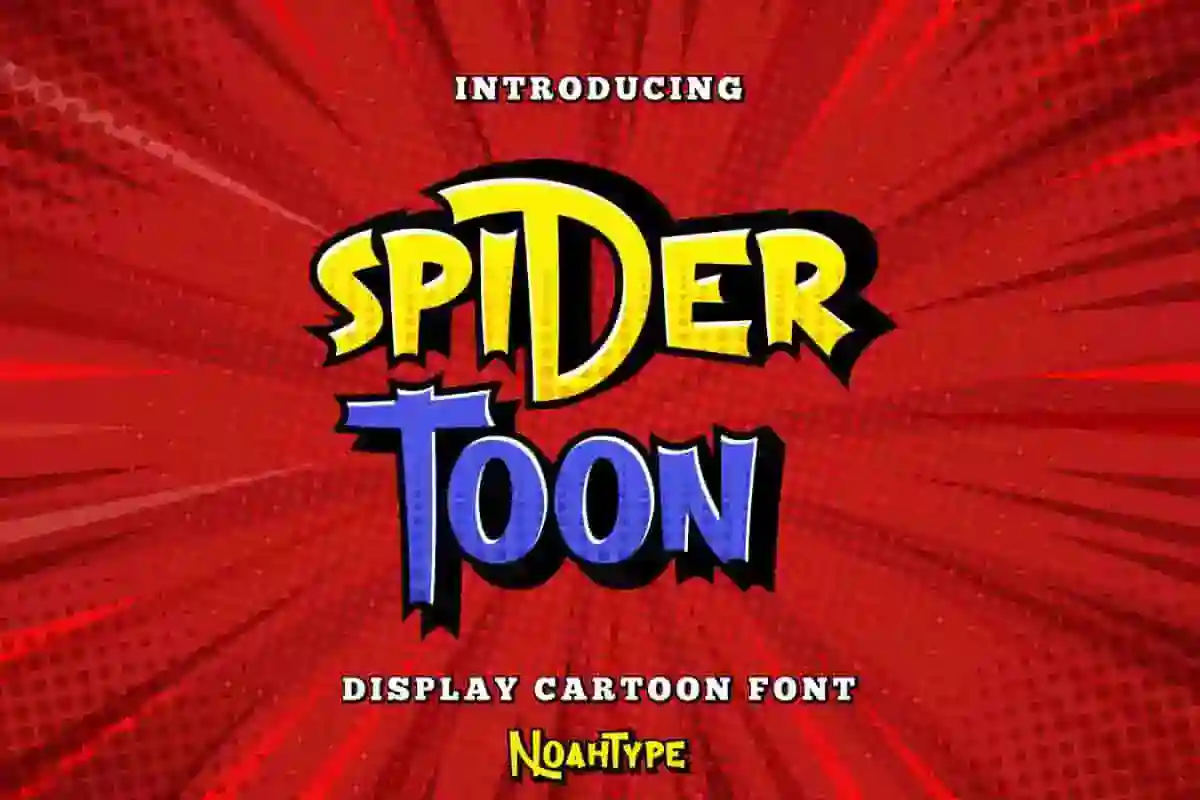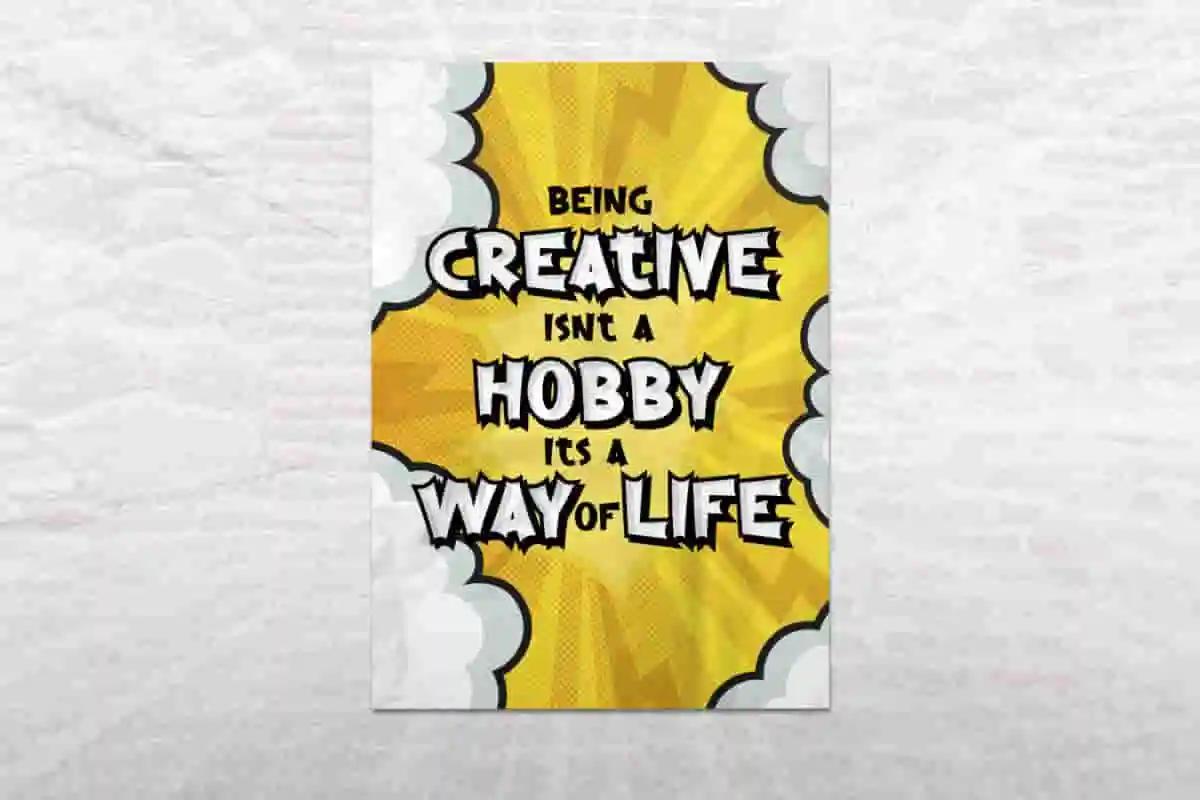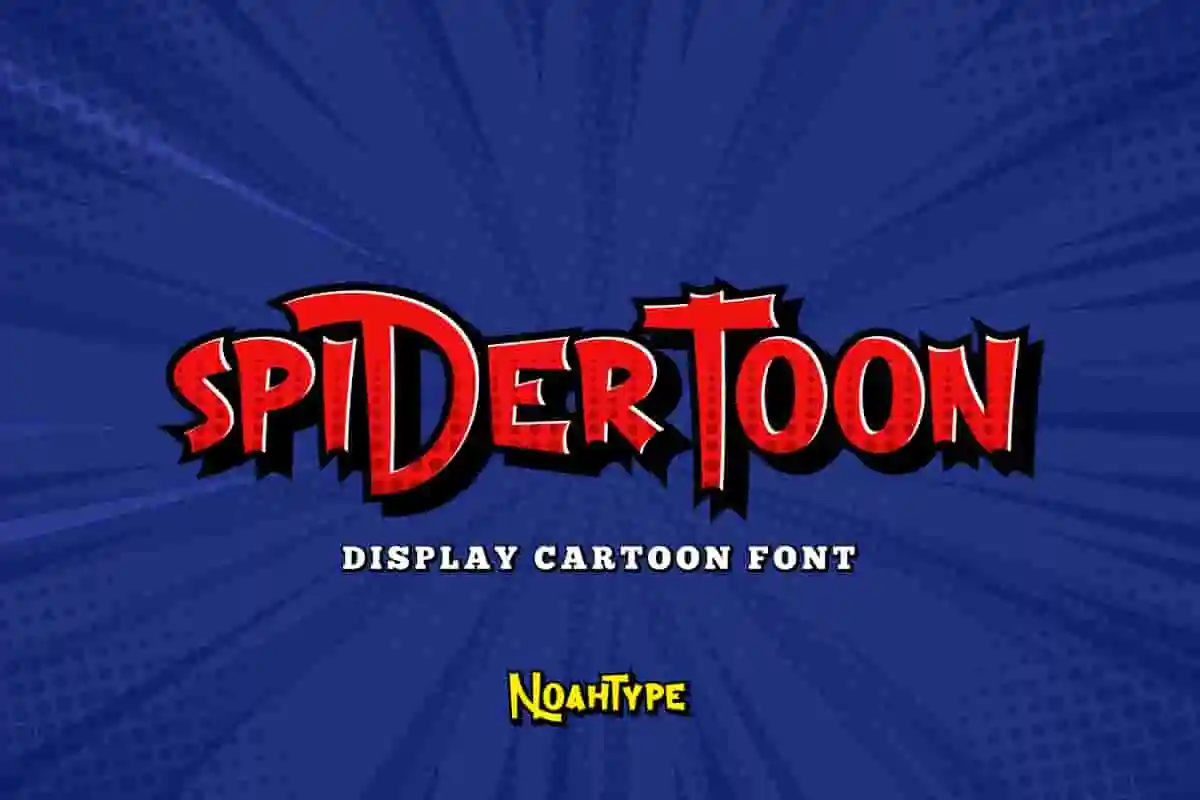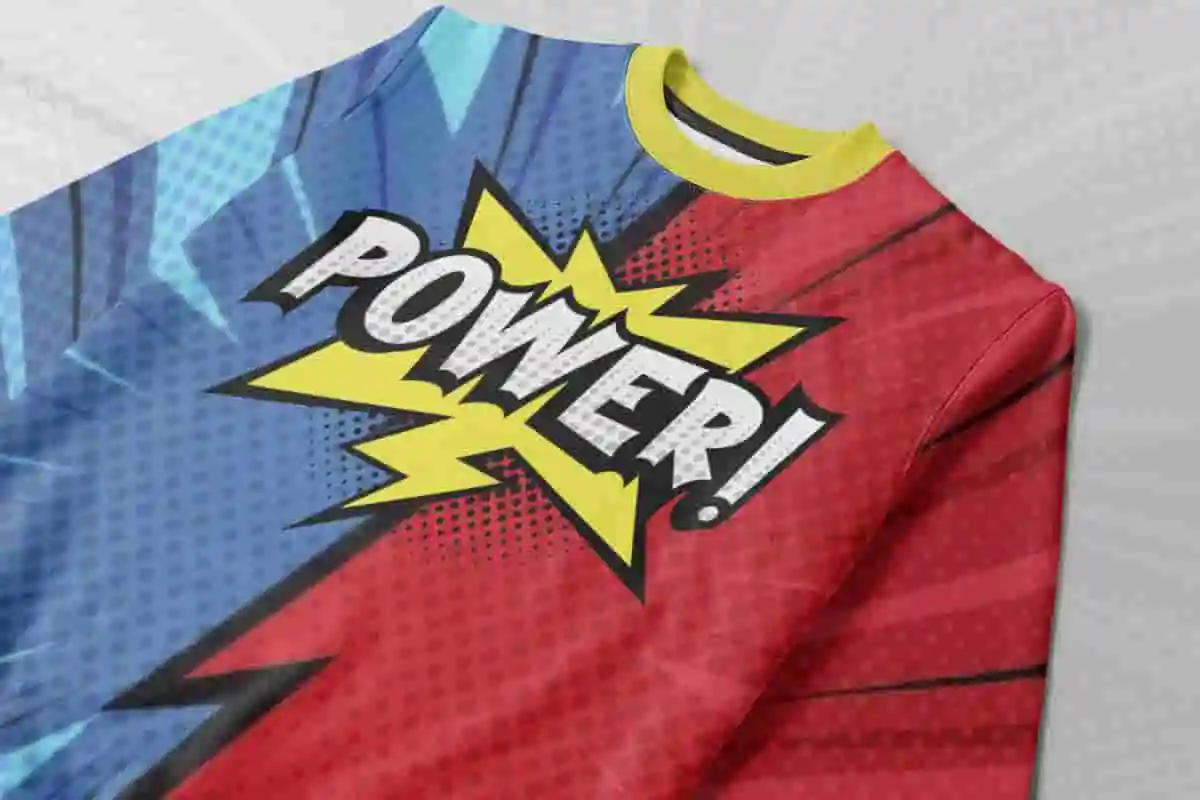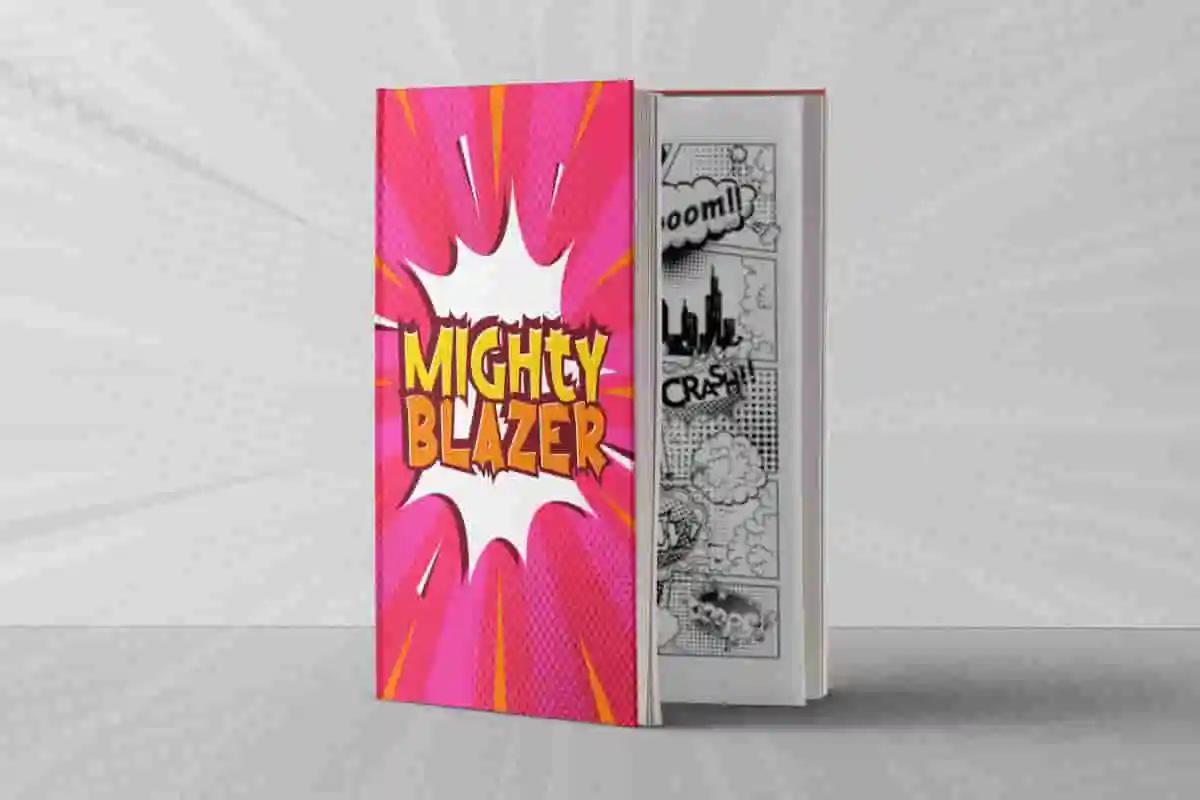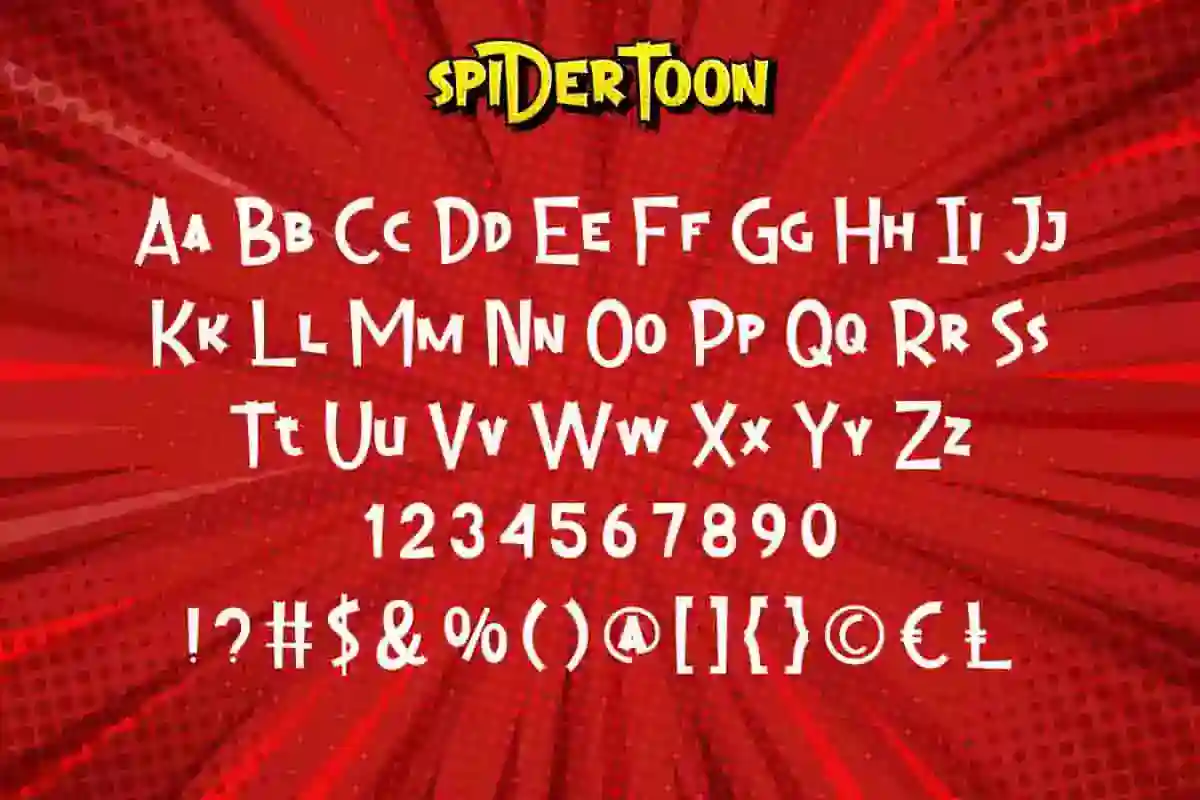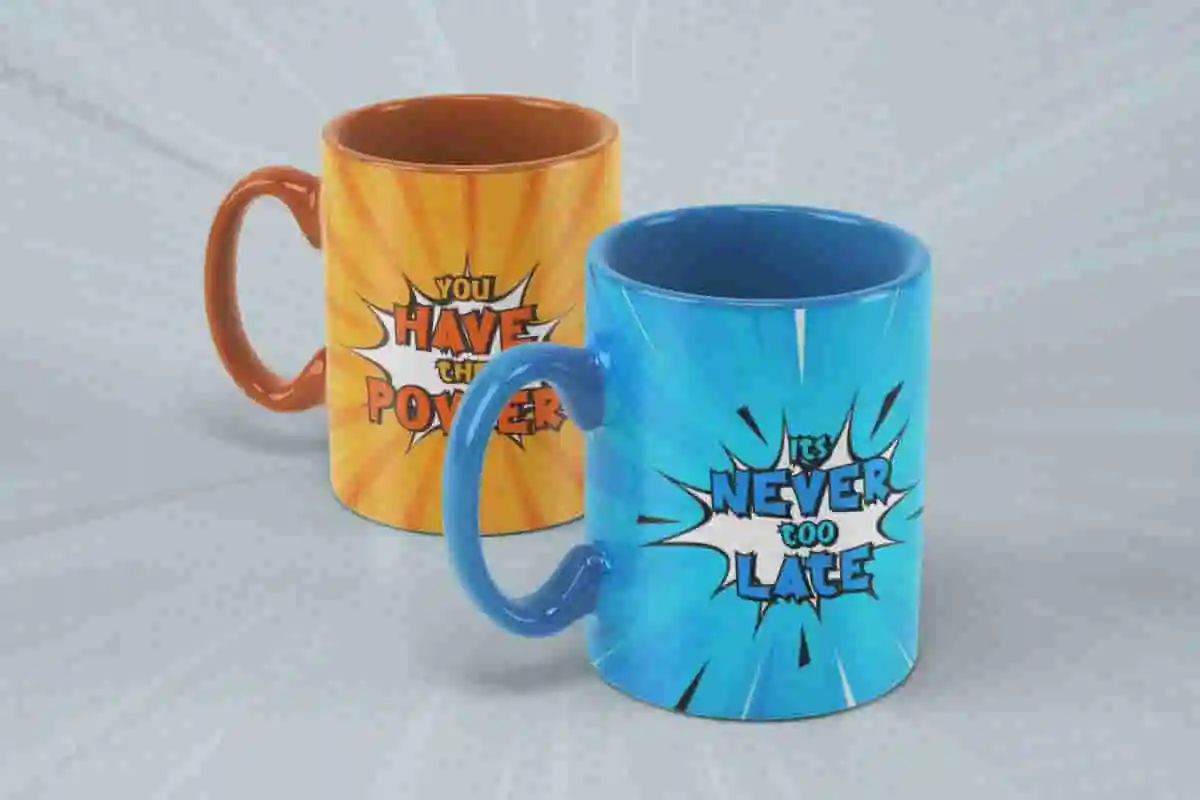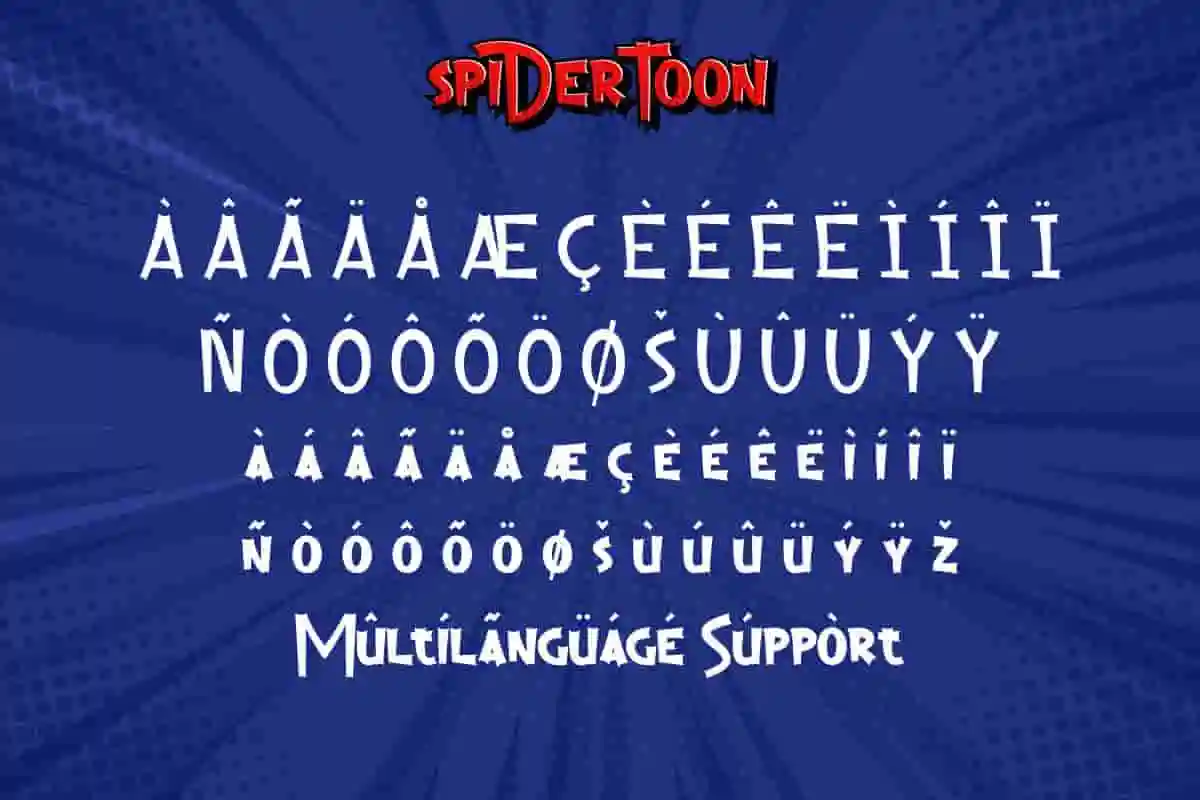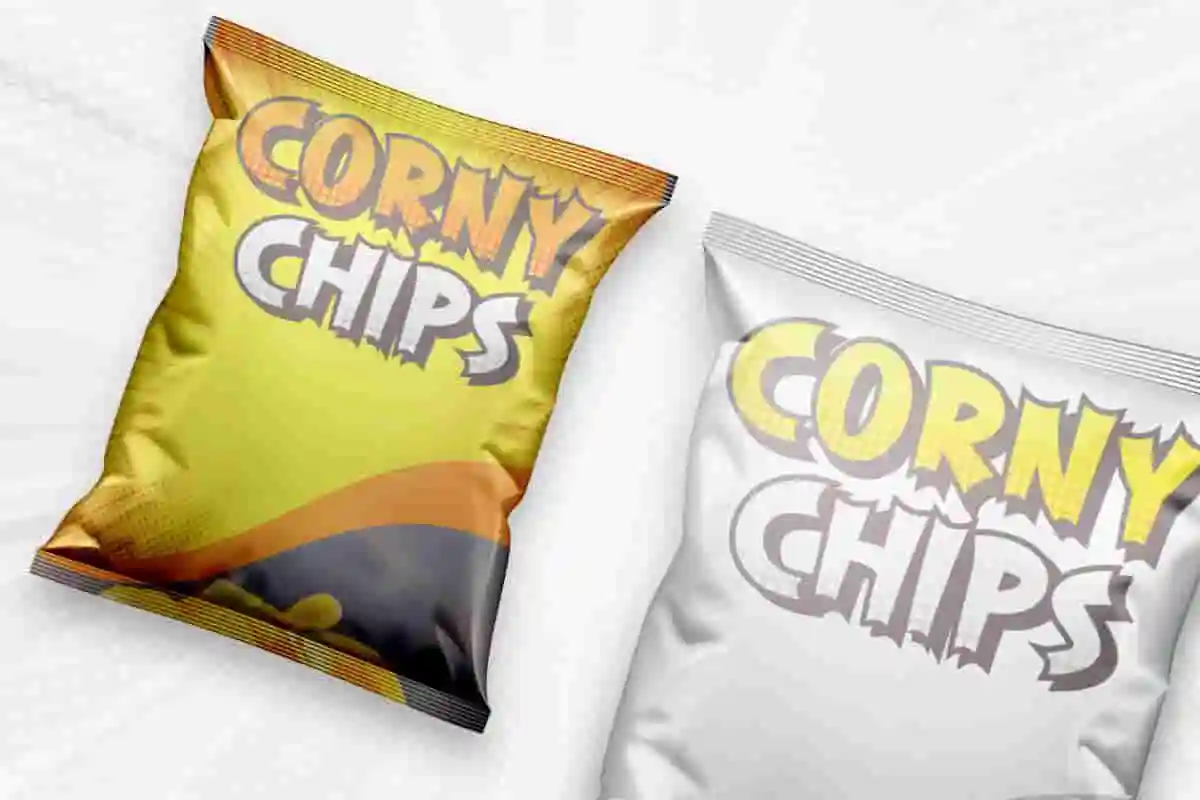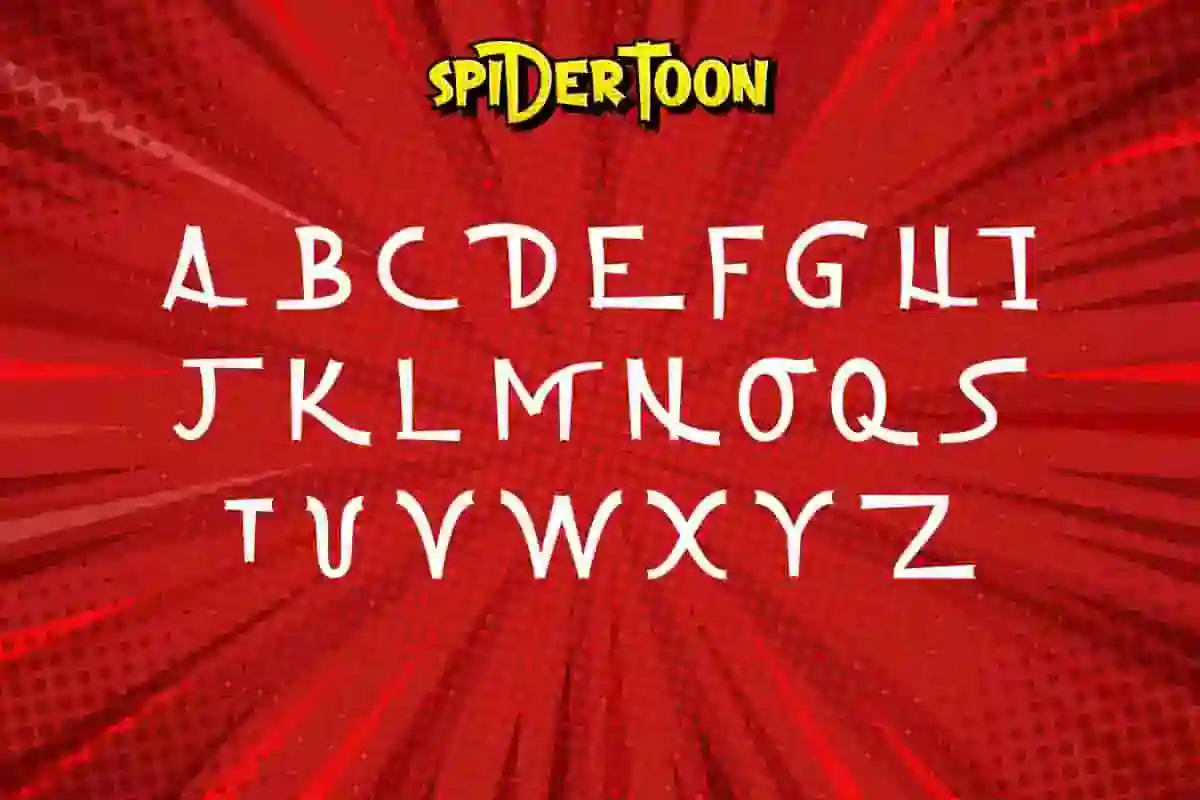
Spider Toon Font is a playful display font with cartoon style created by NoahType. The comic inspired font characters bring energic vibe while easily to read and make it easier for your work in any situation. It will be amazing for project like: apparel printing design, branding, comic design, custom mug, creating logo, headline, kid stuff, poster, product packaging, quote, and more.
Spider Toon Font includes full set of Uppercase and Lowercase Basic Characters, Numerals and Punctuation. This font has alternate characters on the letters that are presented offer a different and excellent look that is ready to surprise you. It will be great for industry: author, candy shop, comic, fashion, food, movie, party event, snacks, toys, and more.
Its chunky letters, dynamic curves, and friendly shapes make it ideal for projects that need a warm and approachable vibe. Whether you’re creating a school project, a gaming logo, or packaging for kids’ products, this font will make your work unforgettable.
Spider Toon Font supports multilingual languages (including multiple currency symbols) with a simple installation, also have alternate characters options that you can select and use to make it standout. The font will be ready to use both on Windows machine or Mac. It work well on Adobe software such as Illustrator, Photoshop and several other software.